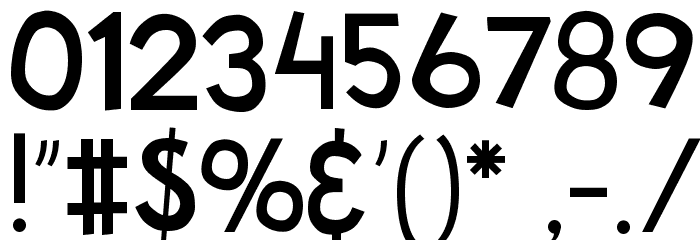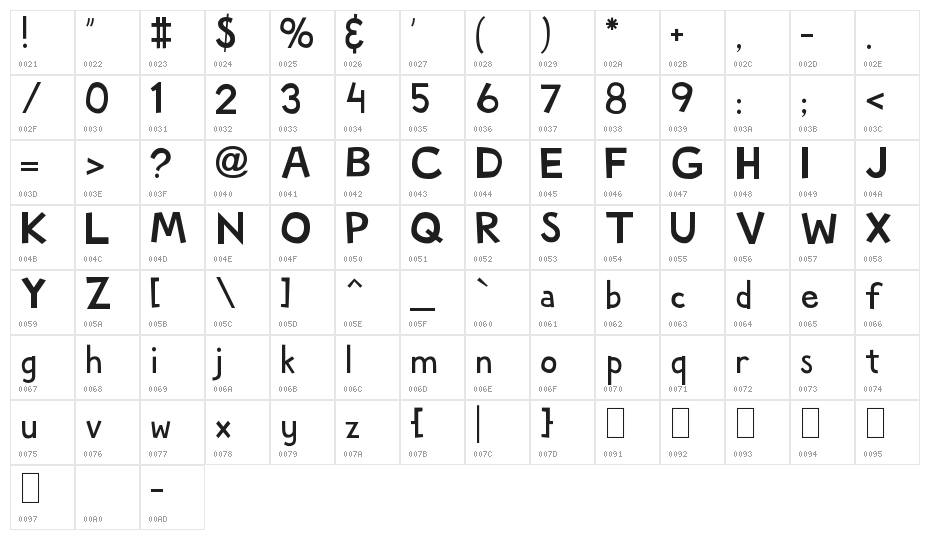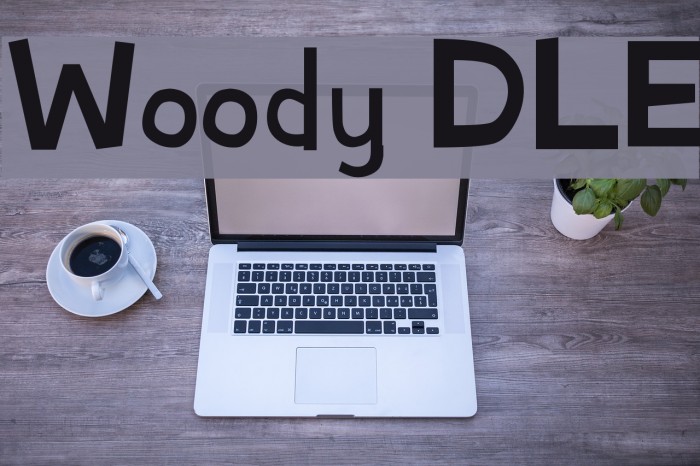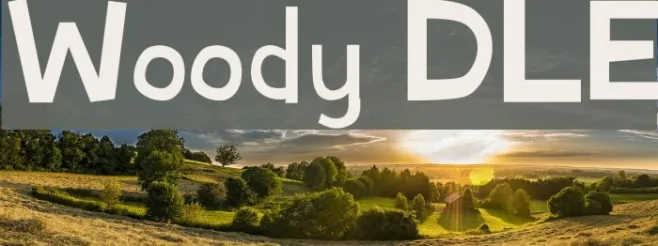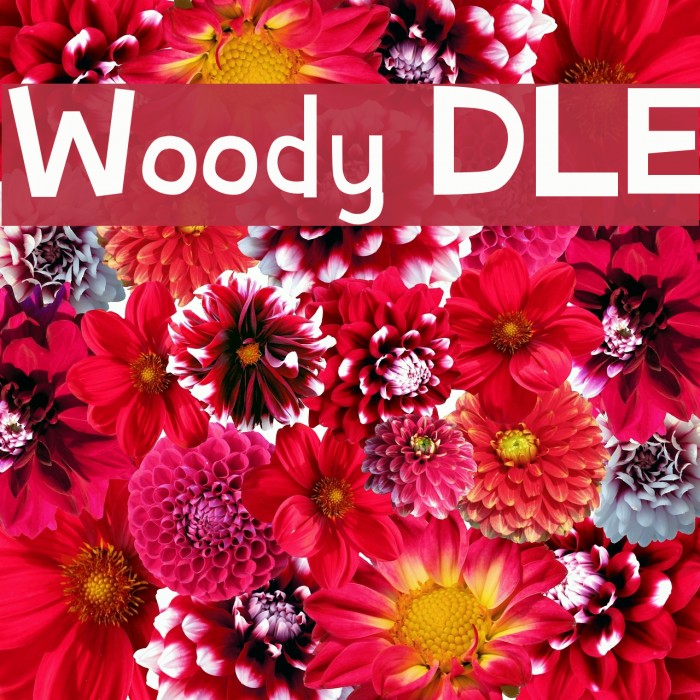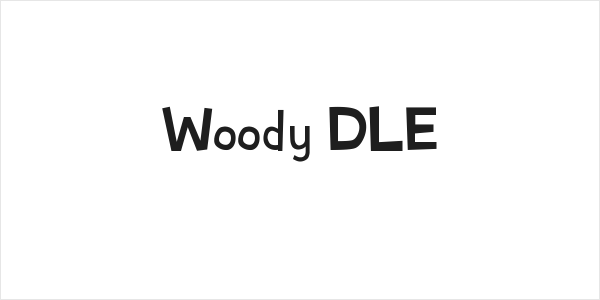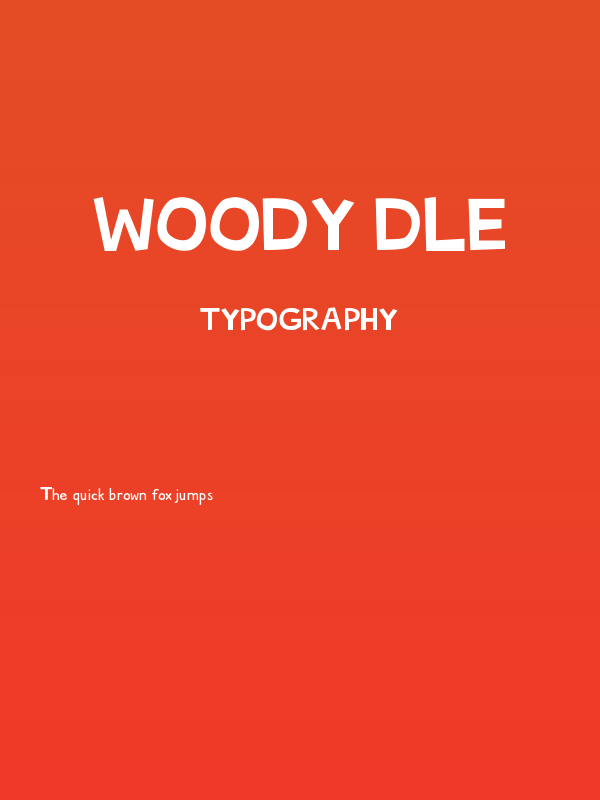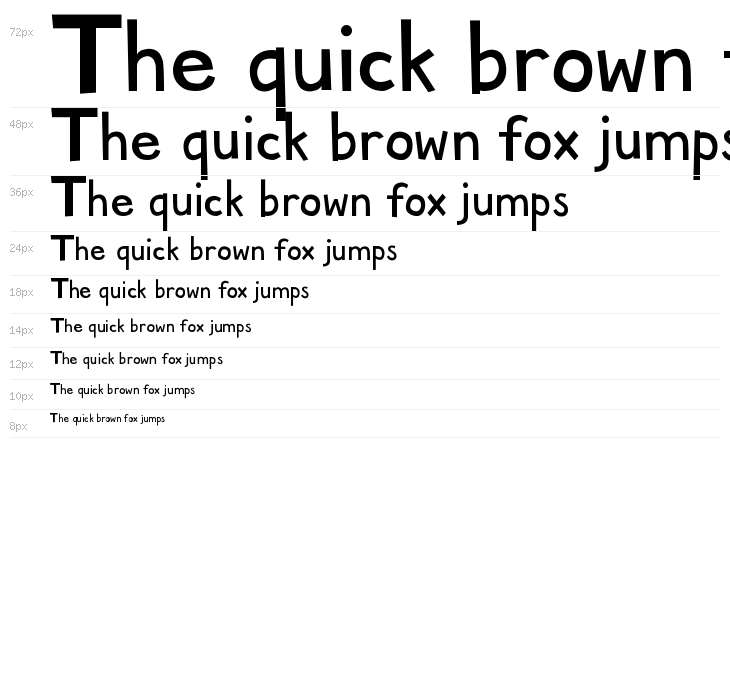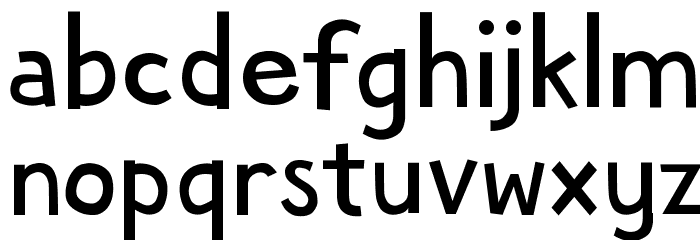
Woody DLE Font
Woody DLE Description
This font features a clean and modern sans-serif style with a geometric structure. The characters are bold and uniform, providing excellent readability. The uppercase letters are slightly taller than the lowercase, maintaining a consistent width throughout. The numbers are well-proportioned, aligning perfectly with the overall design. Special characters are distinct and clear, making them suitable for various applications. The font's simplicity and clarity make it versatile for both digital and print media.
| Use Case | Headlines, Logos, Digital content |
| Proposed Projects | Ideal for branding, advertising, web design, and editorial layouts where clarity and modernity are essential. |